Top 20 fonts that will be popular with designers in 2019
Choosing the right font is often one of the most important parts of the design process. A thoughtfully chosen typeface can be the foundation stone that makes a design come together, and give it that cool, contemporary look and feel, while still maintaining clarity and readability.
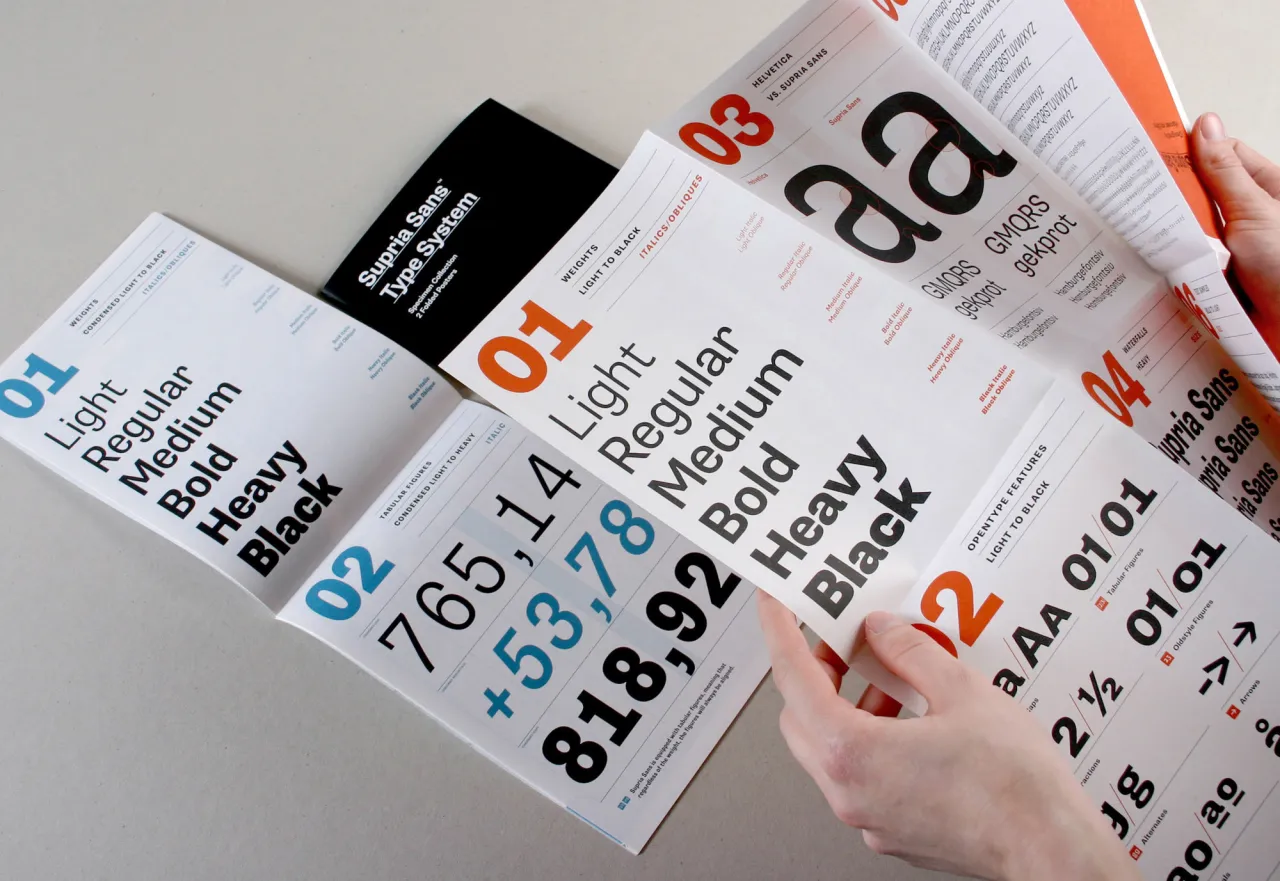
Supria Sans by Hannes von Döhren
In this article, we look at 20 typefaces that are exciting creatives right now, from our students at Shillington to the wider creative industries, and which look likely to make a big impact in 2019. Some are brand new, others established classics, but all of them have the potential to make your design truly sing.
1. Euclid
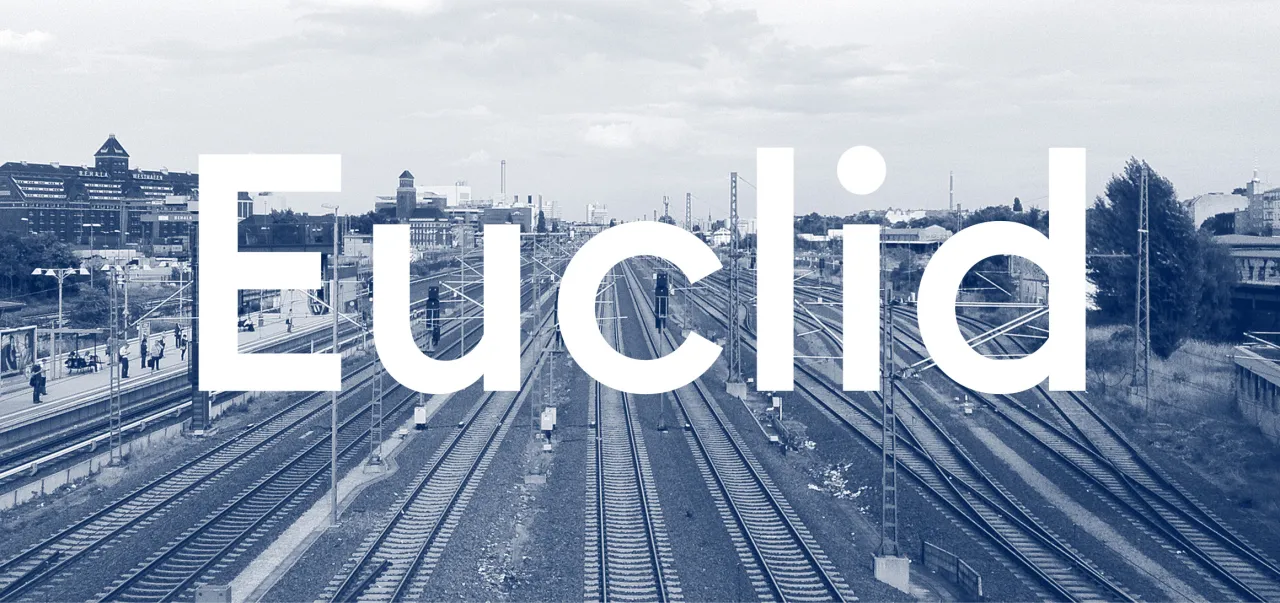
Designed by the Swiss Typefaces Design Team and sold purely through their own website, Euclid is billed as the ‘ultimate geometric’. Constructed from elementary shapes and monolinear lines, it’s a rigorously functional typeface that’s extremely minimalist, but at the same time, quite astonishingly beautiful.
2. Brandon Grotesque
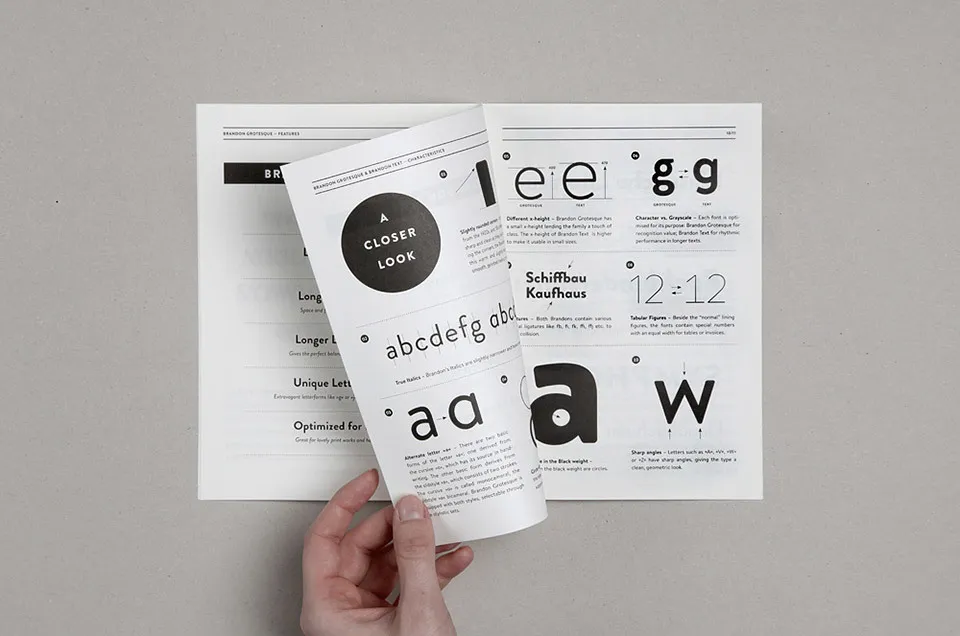
Looking for a geometric sans-serif that’s a little less austere than Euclid? Designed by Hannes von Döhren and inspired by hand-lettered advertisements of the 1920s and 1930s, Brandon Grotesque has a real sense of a warmth and humanity to it. Yet at the same time, it's optically corrected, geometric forms (seen for example in the acutely sharp angles of the "A", "V", "W" and "Z") offer a very high degree of clarity and legibility.
3. GT Haptik
For the identity of Typojanchi 2017, a typographic Biennale, Ordinary People created a legend around a mythical creature called Mohm, featuring GT Haptik.
GT Haptik is a monolinear geometric grotesque typeface designed by Reto Moser and Tobias Rechsteiner with an intriguing twist: its uppercase letters and numbers are designed to be read blindfolded, just by touching them (ie, haptic). It’s available in seven weights and 21 styles, and included with each style are alternate characters, as well as proportional and tabular figures.
4. Tiempos
Designed by Oak
Beginning life as an optimisation of Galaxie Copernicus for a Spanish newspaper redesign, Tiempos eventually evolved into a standalone family in its own right. Tiempos Text is perfect for body copy, with its shorter cap-height, ascenders and descenders allowing for tighter line spacing without sacrificing legibility. Tiempos Headline allows a great deal of flexibility, to prevent text looking too ungainly at large sizes, while Tiempos Fine, which was designed specifically for National Geographic, offers a refined and elegant cut of Tiempos Headline for extra crispness.
5. Konop
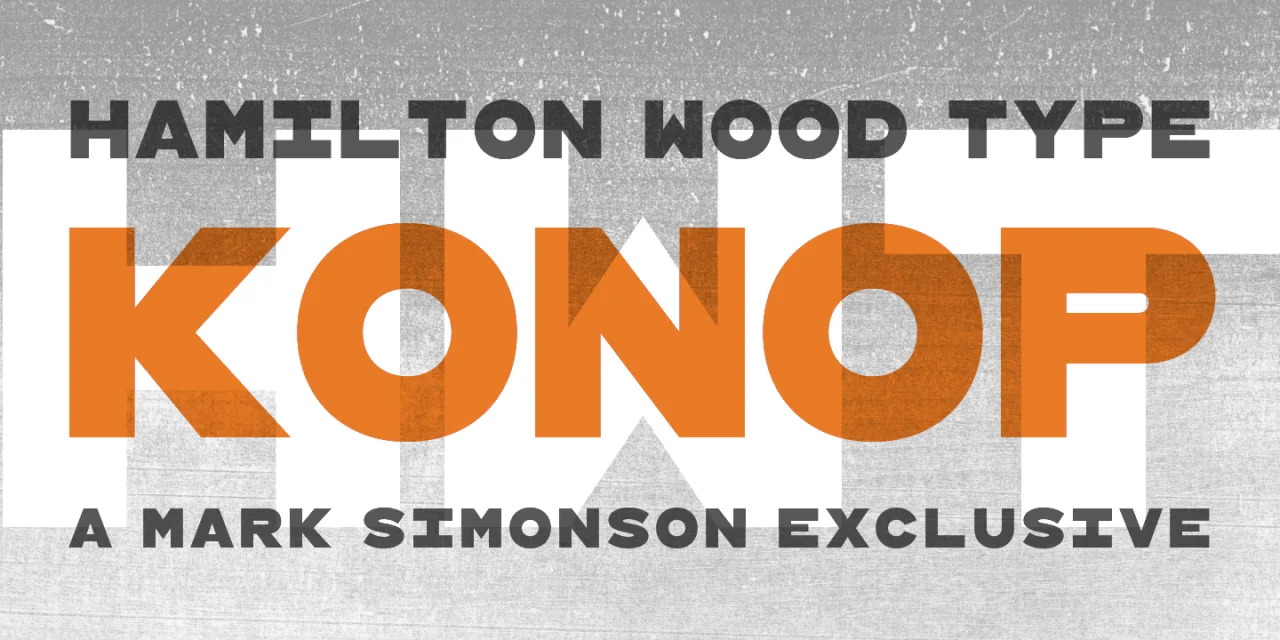
Here’s something you don’t see every day: a monospaced (fixed-width) gothic typeface that’s completely square. Designed by Mark Simonson, its style is reminiscent of gothic wood types but more geometric. This makes for charmingly different characters that align perfectly, even when used at different sizes.
6. Colfax
You Are But You Are Not by Kolar Aparna and artist Beatrice Catanzaro. Curated and produced by Lungomare. Source: non-linear.com
A sans-serif family from Process Type Foundry based on the concept of ‘implied geometry’, Colfax’s letterforms feature circles that are nearly but not quite perfect. Named after a street in designer Eric Olson’s hometown of Minneapolis, this is a workmanlike typeface that’s stylish but in a quite down-to-earth and unpretentious way.
7. Alright Sans
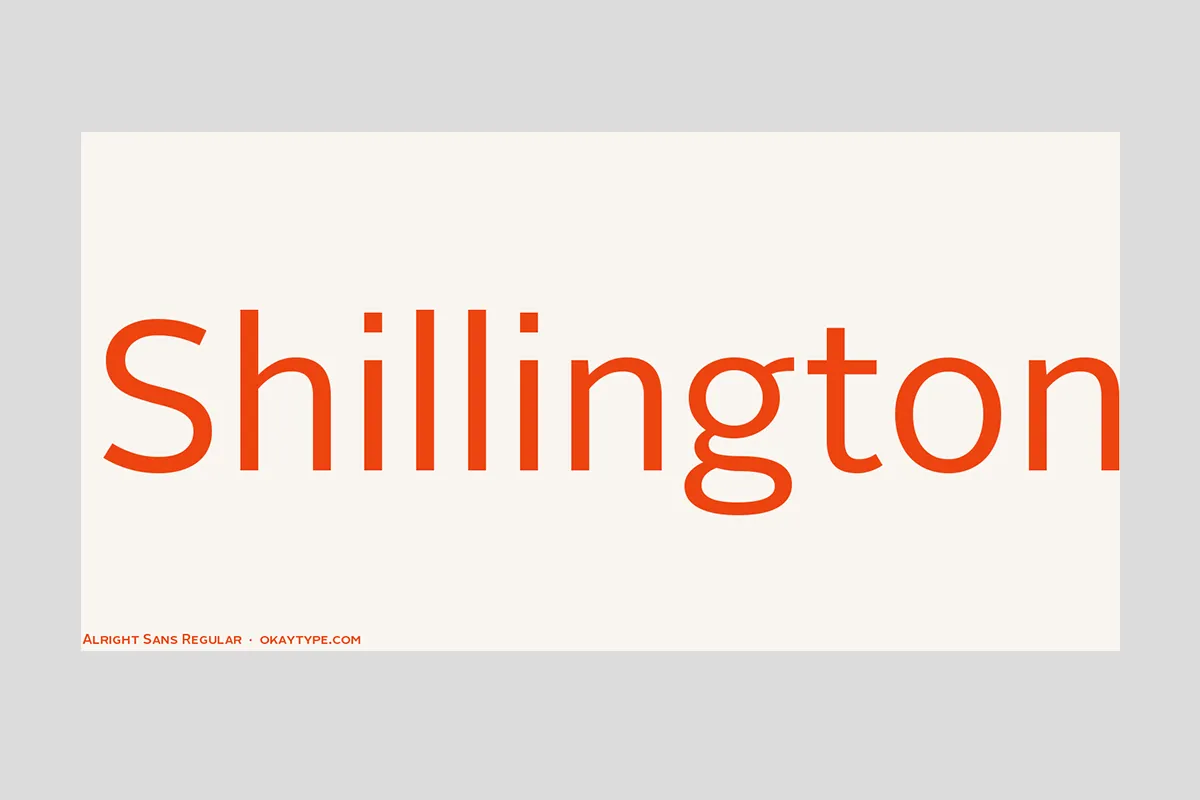
As the colloquial name suggests, Alright Sans is another unpretentious, modern sans-serif that strikes an enticing balance between austere-serious and warm-friendly. With its open structure, shorter-than-normal capitals and large x-height, this versatile font works very well across all kinds of media, in both large and small sizes.
8. Supria Sans
Another stylish font from Hannes von Döhren, Supria Sans takes the utilitarian clarity of Swiss-type design and gives it the subtle curves and fine detailing it needs to feel playful and fun. As well as the upright version, the family also contains a calligraphic italic style and a more reduced oblique style for each weight.
9. Burgess
While Times New Roman was widely believed to have been drawn for the British newspaper The Times in 1931 by Victor Lardent and Stanley Morison, some type historians believe it was based on an earlier work by the American industrial designer William Starling Burgess. To celebrate their fifth anniversary, Colophon Foundry recreated Burgess’s typeface, based on mid-century Photostat cuts of Times New Roman Bold and Bold Italic, and distributed it digitally in Open-Type (.OTF) format. This transitional serif typeface is available in two weights, regular and bold, each with matching italics.